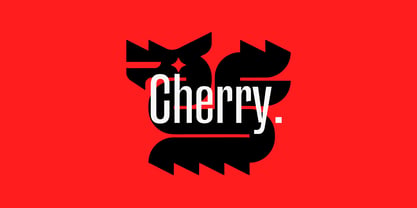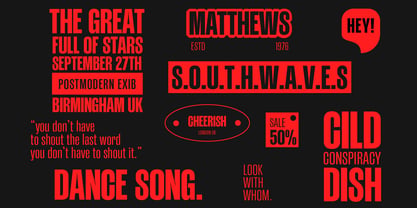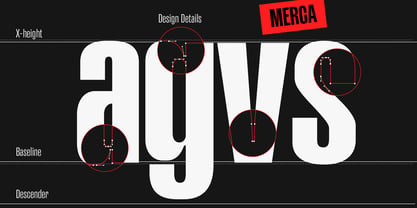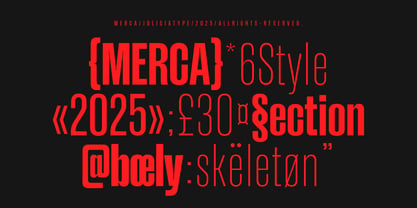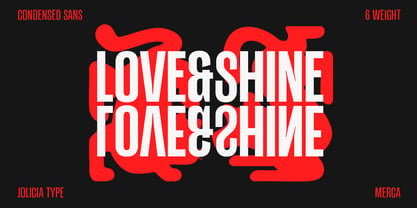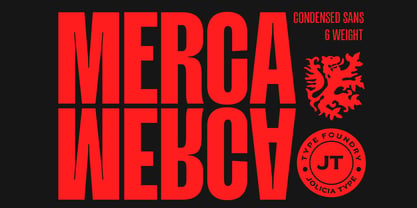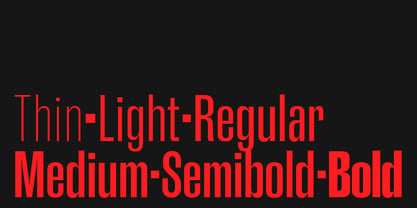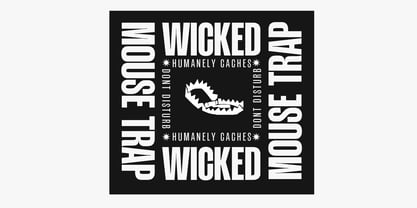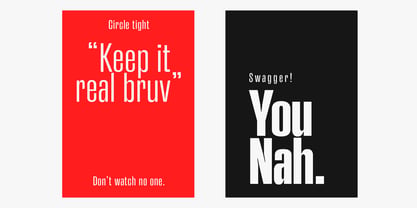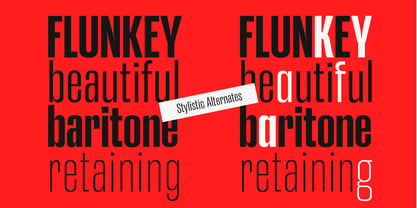
Merca
von Jolicia Type
Die Schriftfamilie Merca wurde von Laire Banyu entworfen und von Jolicia Type veröffentlicht. Merca enthält 6 Stile und Familienpaketoptionen. Mehr über diese Familie
Designer: Laire Banyu
Foundry: Jolicia Type